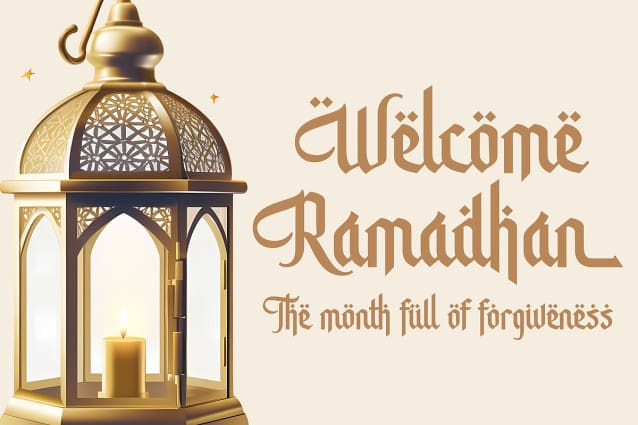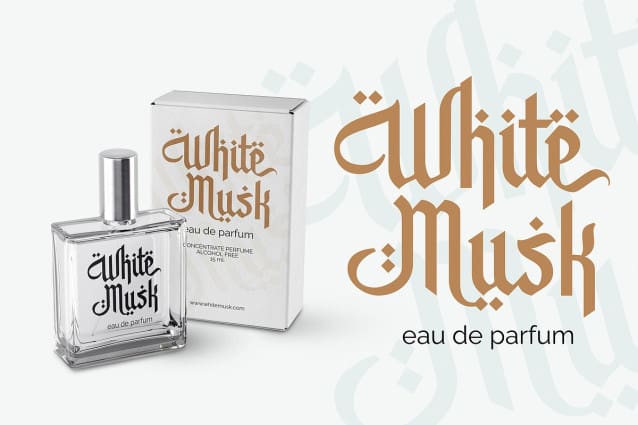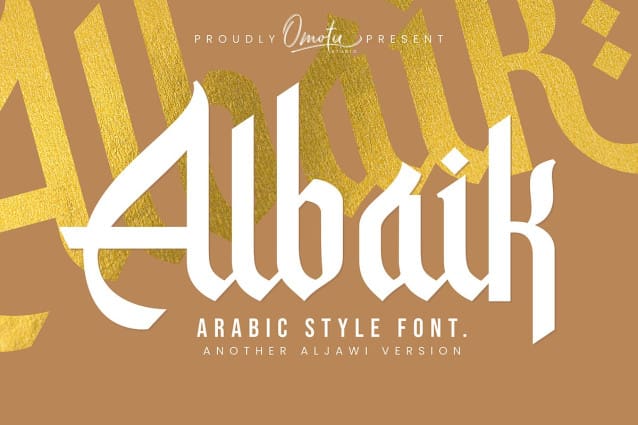
Albaik Arabic Font
Albaik Arabic Font is a modern Arabic style font and this is another version of Aljawi. This font very usable for designing all kind of graphics design related to Islamic Contents. Albaik font is suitable for heading, branding, logotype, apparel, T-shirt, Hoodie, product packaging, quotes, flyer, poster, book cover, advertising, etc.